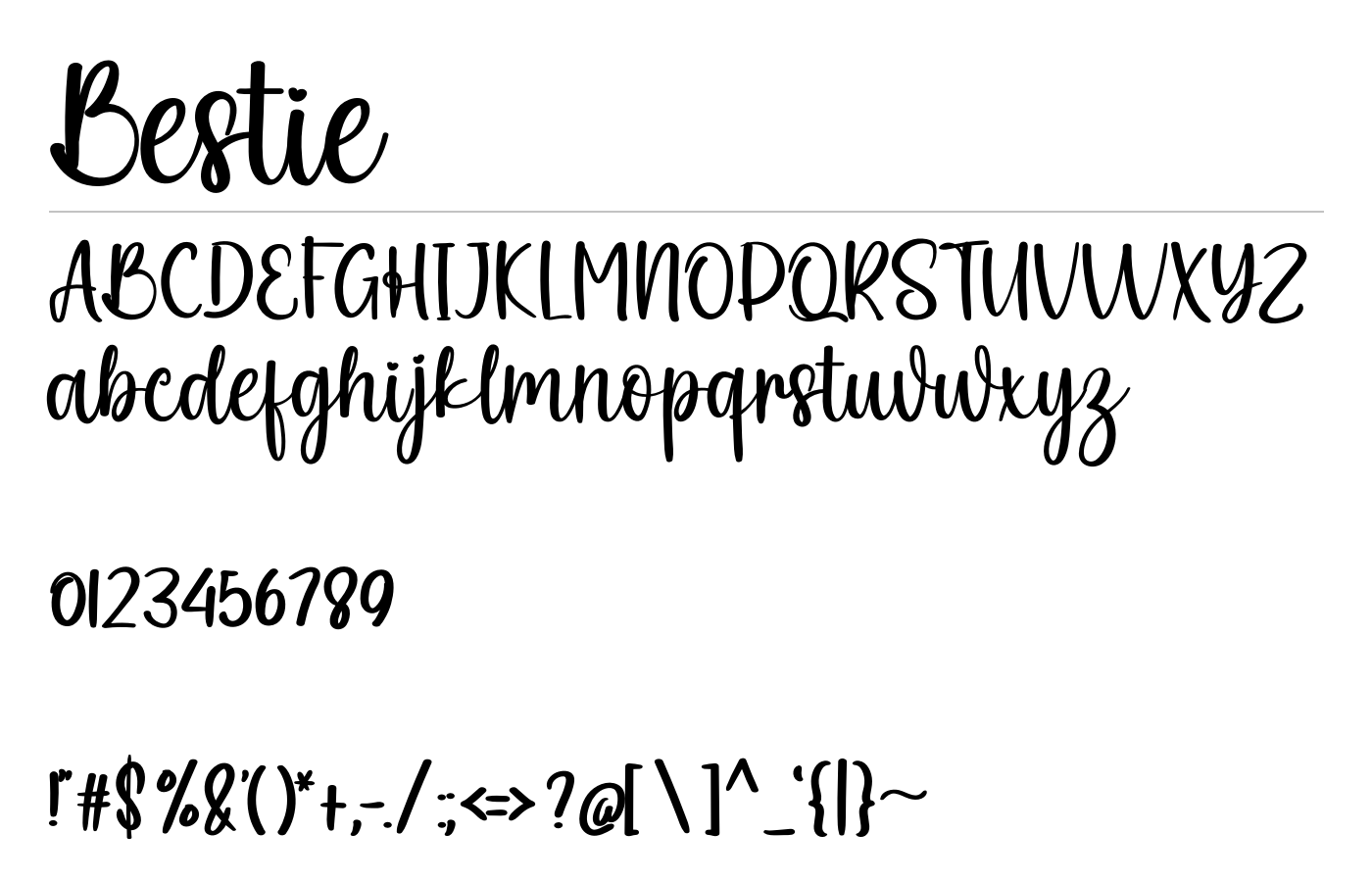
Bestie Font is a playful and charming script typeface with a handwritten feel, featuring smooth, rounded strokes and a medium weight that gives it a friendly and approachable look. Its clean yet whimsical letterforms, including unique heart-shaped dots, make it ideal for creative projects, branding, invitations, and casual headlines. This font works well where a warm, personal touch is desired, adding personality without sacrificing readability.
Bestie Font
About Bestie Font